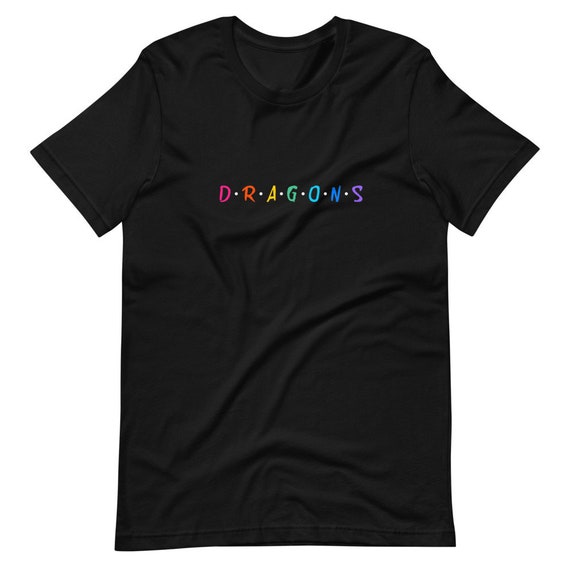
Southlake Carroll Dragons shirt | Friends font | Short-Sleeve Unisex T-Shirt | in black
Features DRAGONS across the front in the colorful Friends font. Shirt is black to make the colors really pop.